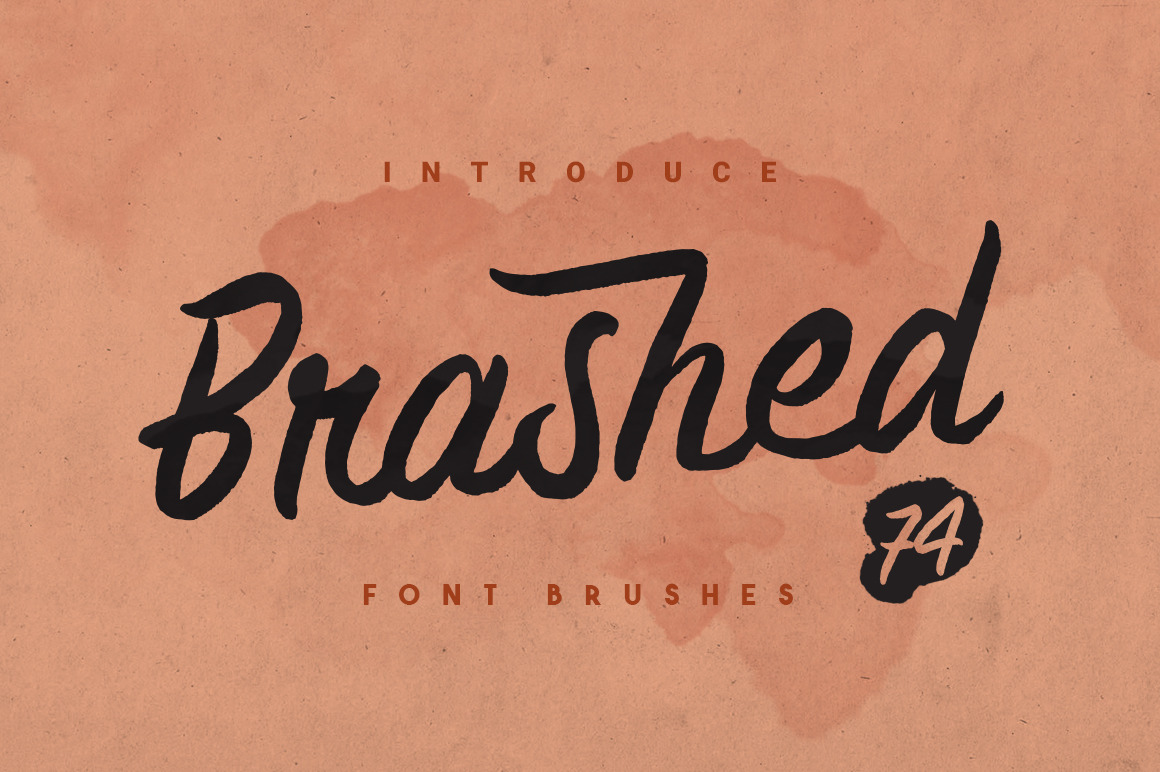
Brashed Typeface
a BRASHED TYPEFACE is brush handmade font and also has beautiful opentype features . Can make it easier to convey the message in your design. Use for awesome display, labeling, clothing, movie sceen, poster, movie title, gigs, album covers, logos, and much more.
Brashed Typeface